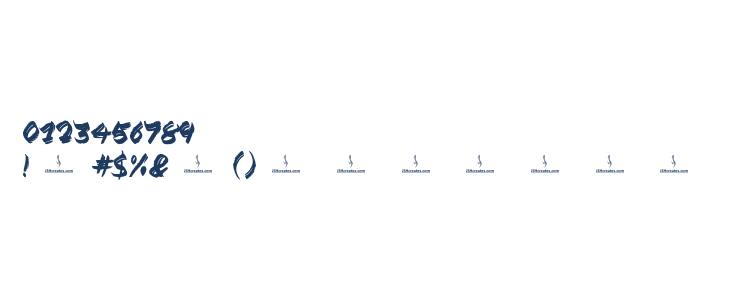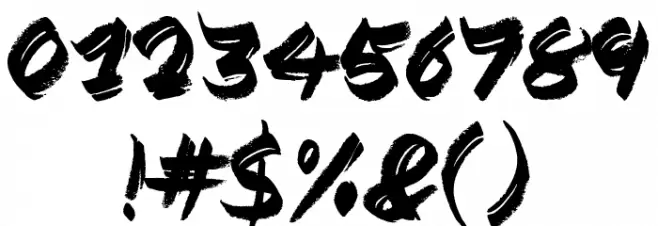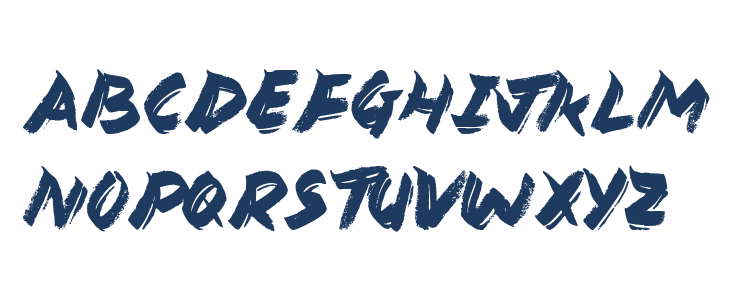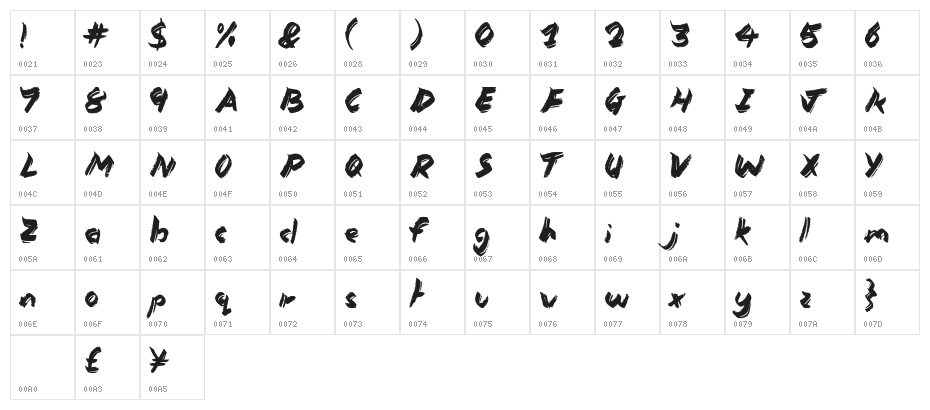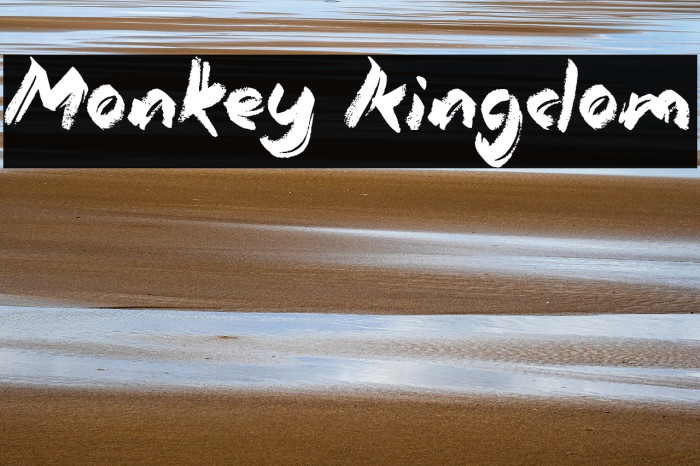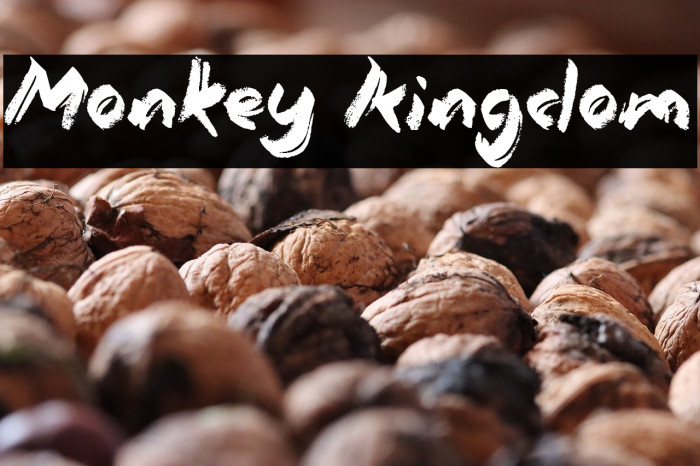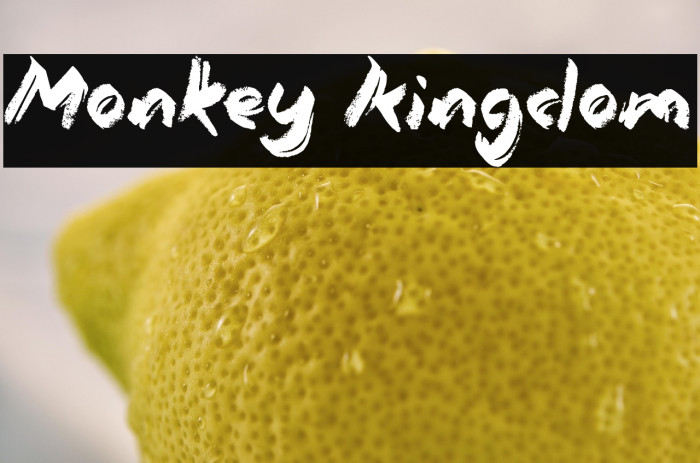
Monkey Kingdom Font
A bold, brush-stroke style handwritten font with a casual and energetic appearance.
| Overall Style | Casual, Artistic, Dynamic |
| Use Case | Headlines, Logos, Posters, Creative branding |